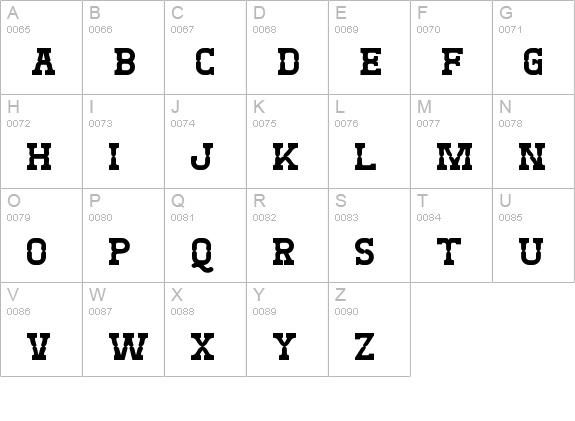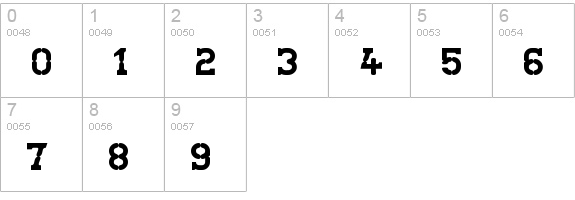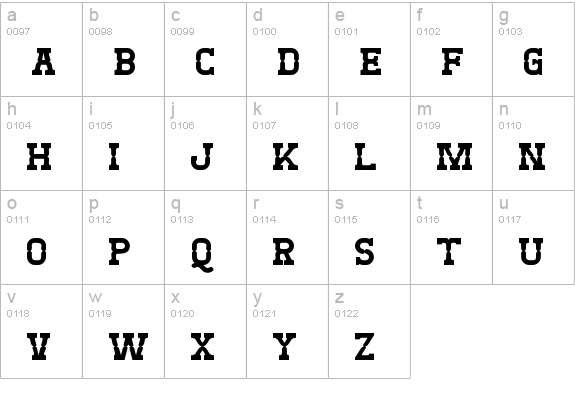
Introducing West Test, a captivating font that effortlessly combines modernity with a touch of vintage charm. With its unique blend of clean lines and subtle curves, West Test captures the essence of contemporary design while paying homage to the timeless appeal of classic typography. This versatile typeface is perfect for a wide range of creative projects, from logo designs to branding materials, editorial layouts to website designs. What sets West Test apart is not just its aesthetic appeal, but also its accessibility. This font is freely available to download at FontsMarket.com, making it accessible to designers, creatives, and typography enthusiasts alike. Whether you're a seasoned professional or an aspiring artist, you can now elevate your designs with this exceptional font without breaking the bank. The carefully crafted characters of West Test exude confidence and elegance, making it a perfect choice for both bold headlines and delicate body text. Its versatility extends to various design styles, effortlessly adapting to minimalistic designs as well as more intricate compositions. The development of West Test involved meticulous attention to detail, resulting in a font that offers exceptional legibility even at smaller sizes. Its well-balanced proportions and precise spacing ensure a pleasant reading experience, whether in print or on-screen. Elevate your design projects with West Test and experience the freedom of creativity. Download this remarkable font for free at FontsMarket.com and let its timeless charm and modern appeal bring your designs to life.